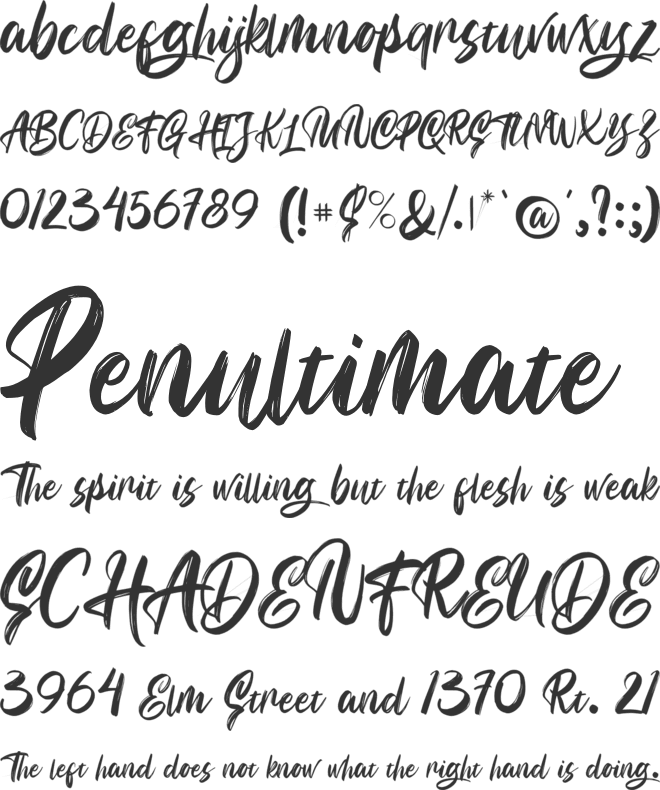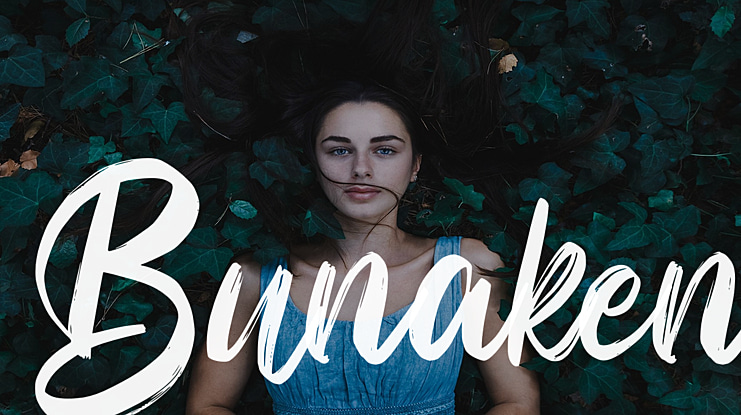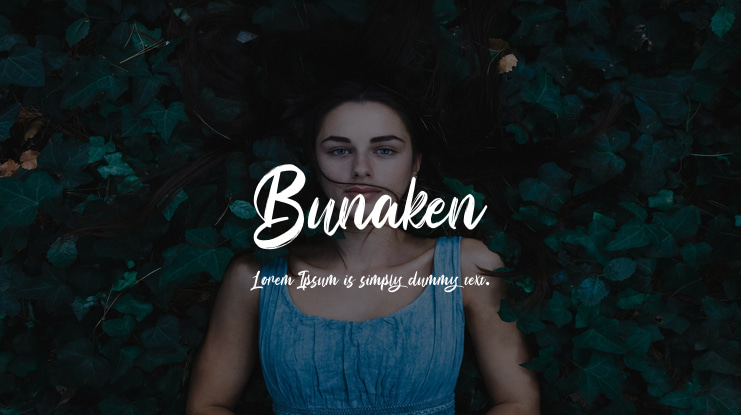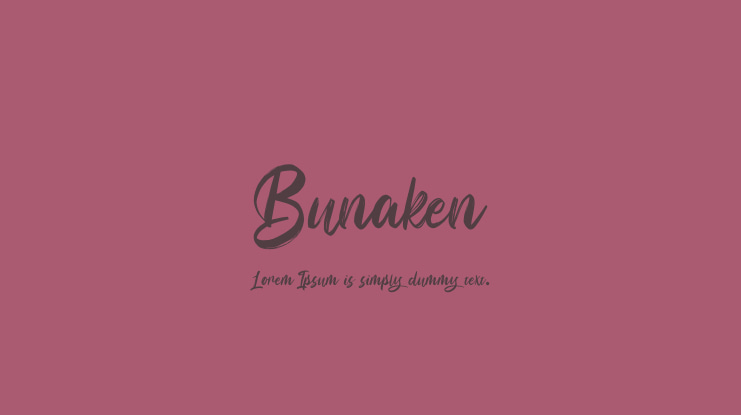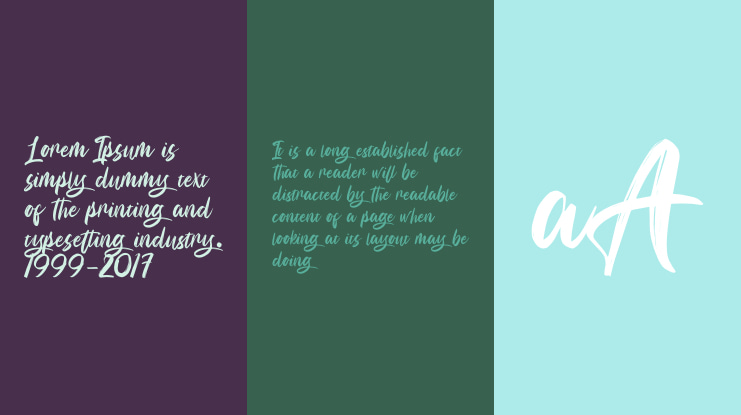
Bunaken Font
Bunaken looks bold, yet sophisticated and features chunky and extended characters that will look particularly adept when used in logos, branding, packaging design, and much more.This masterfully designed brush script is a true must-have.Full Version Download Here :https://typefactory.co/product/bunaken-handmade-brush-font/ref/501262/